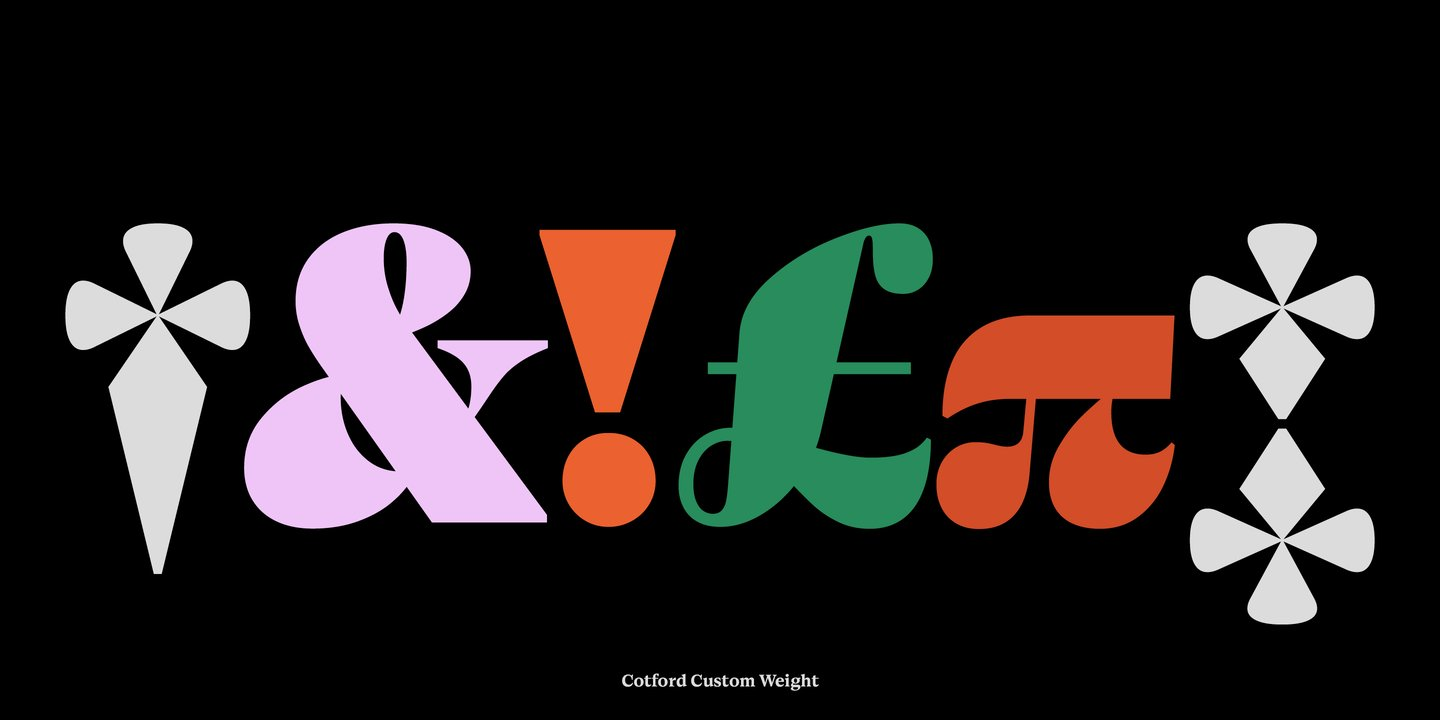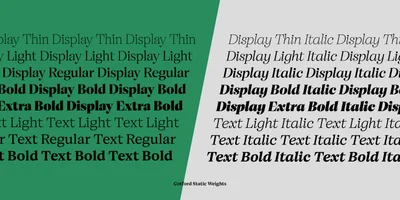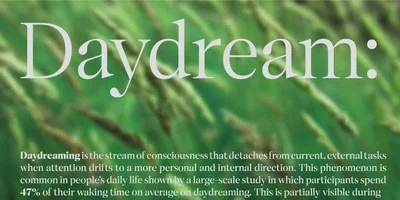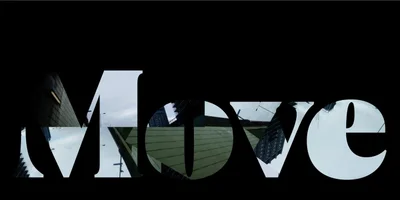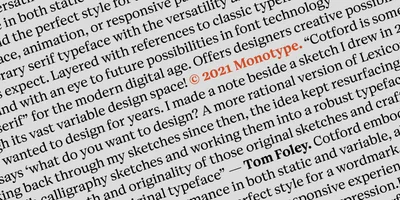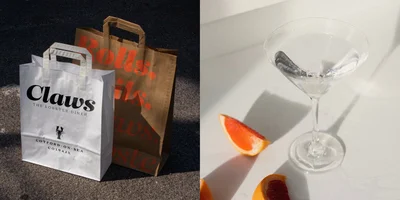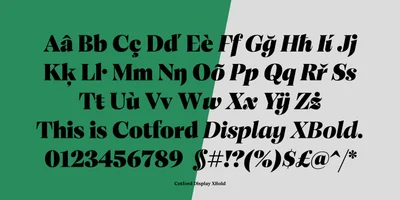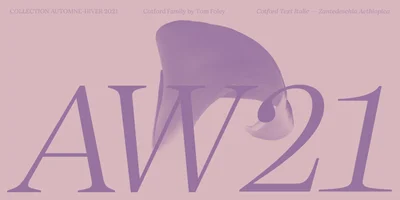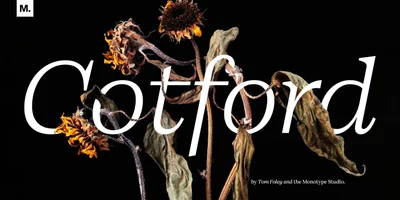
Cotford vs Egyptienne
Cotford and Egyptienne are both serif typefaces from different design traditions. Where Cotford leans transitional, display, Egyptienne brings slab serif, retro. Compare which suits your Display project.
Cotford
Transitional
Display
Egyptienne
Slab Serif
| Feature | Cotford | Egyptienne |
Recommended: Cotford
- transitional, display design character
- Suited for Luxury
Consider: Egyptienne
- slab serif, retro design character
- Suited for Print